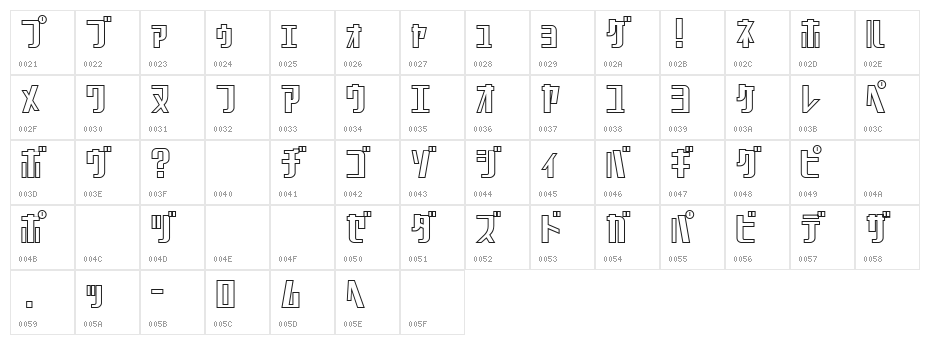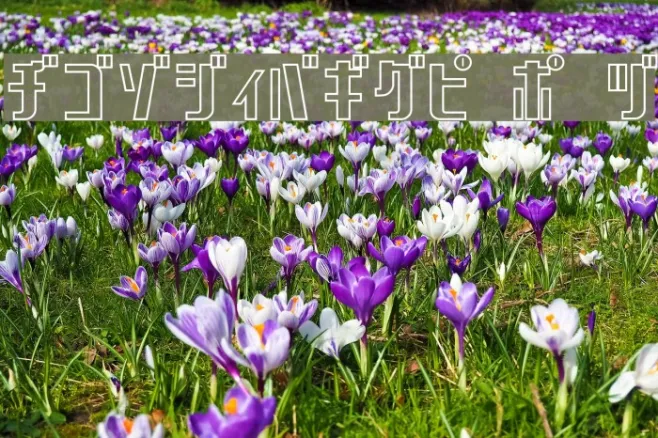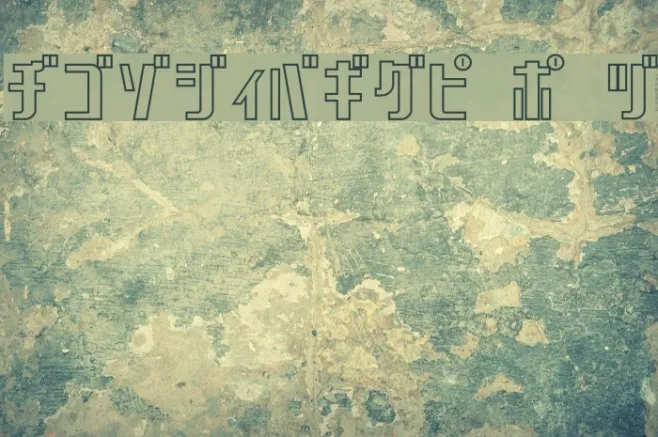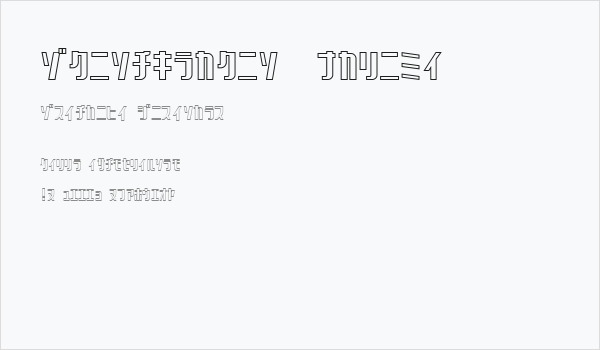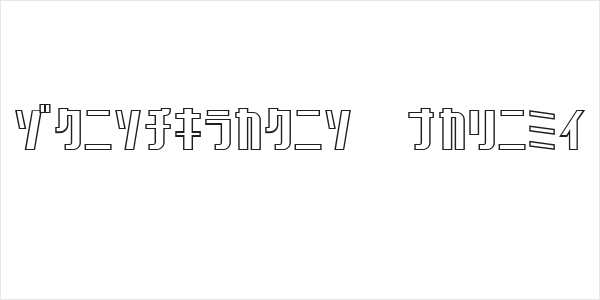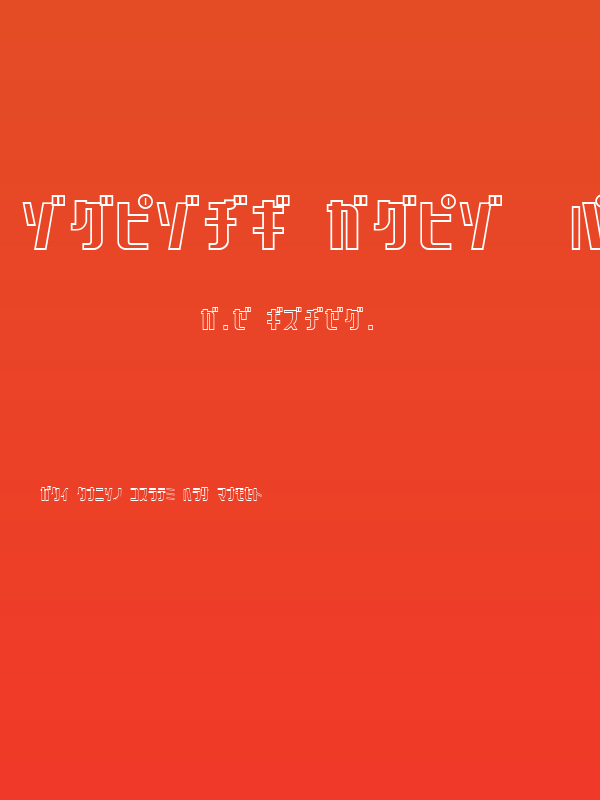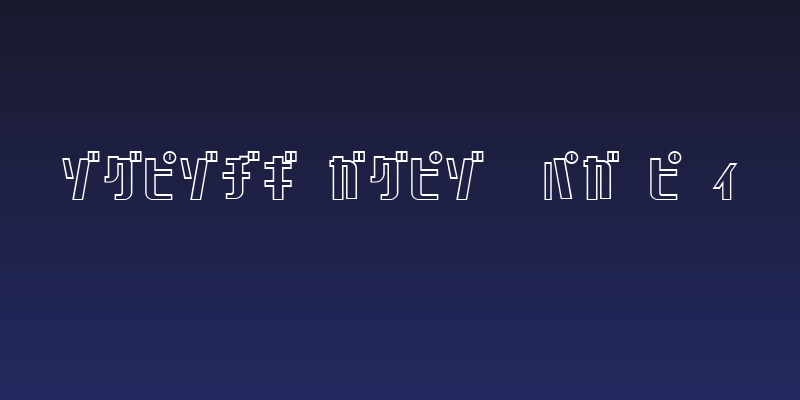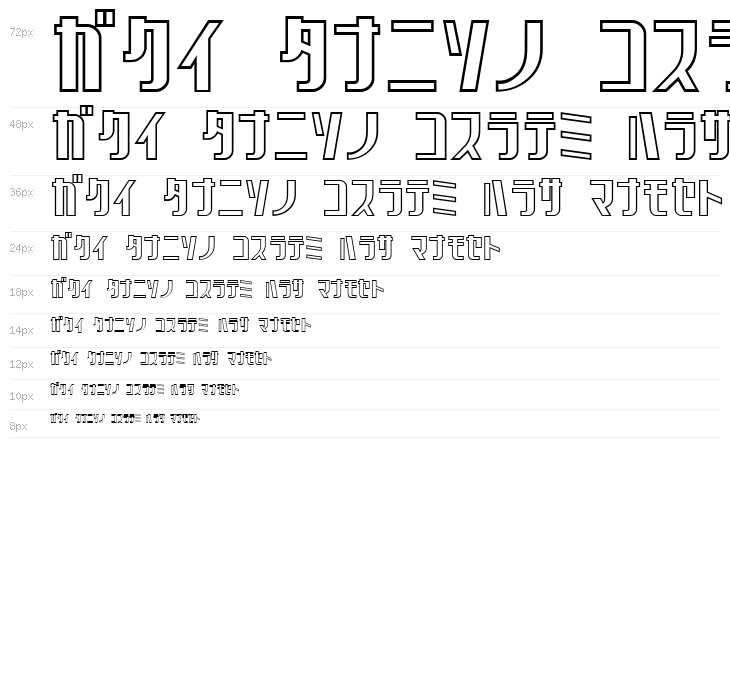
Chicagothic Outline Font
Chicagothic Outline Description
This font features a bold, outlined style with a modern and geometric appearance. The characters are constructed with clean, straight lines and sharp angles, creating a sense of precision and clarity. The outline design gives each letter a distinct and striking look, making it stand out prominently. The font maintains a consistent weight throughout, with uniform stroke thickness that enhances its readability. Its structured form is ideal for creating a strong visual impact, making it suitable for various design applications where attention is key.
| Proposed Projects | Ideal for headlines, posters, branding, and any design requiring a strong visual impact. |